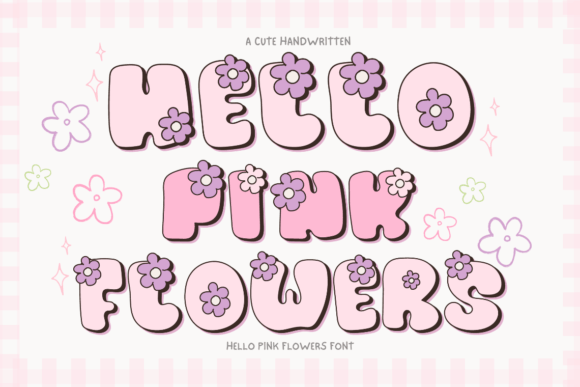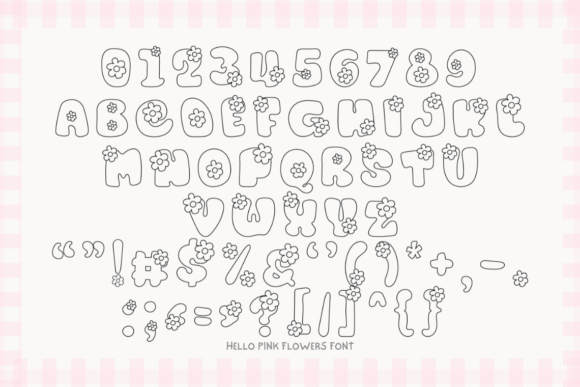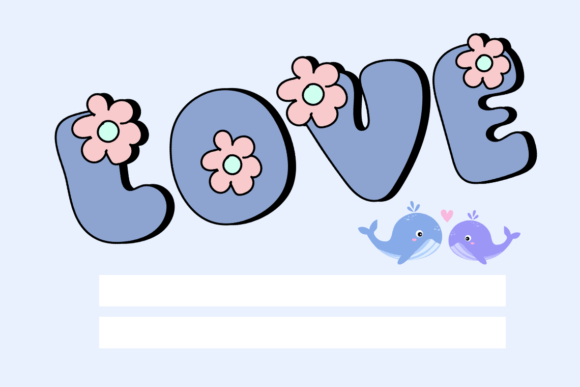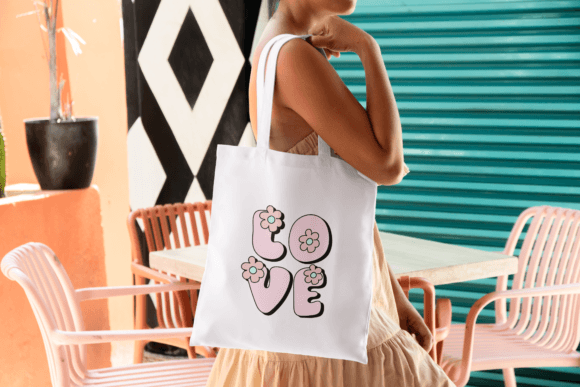
Hello Pink Flowers Font
About the Hello Pink Flowers Font
Presenting Hello Pink Flowers Font, a unique and stylish typeface that will make your work stand out. Introducing Hello Pink Flowers Font: a delightful handwritten typeface with a spring floral theme. Perfect for various occasions, including holidays, DIY birthdays, and any creative inspiration. Use it for invitations, posters, stickers, greeting cards, and more. From lettering to logos, wallpapers to advertisements, headers to titles, and tags, this font adds a touch of natural elegance to your designs. Ideal for wedding invitations, business cards, magazines, social media posts, planner prints, websites, and beyond, Hello Pink Flowers Font brings a charming floral flair to every project
Hello Pink Flowers Font Usage Examples
Hello Pink Flowers Font Example